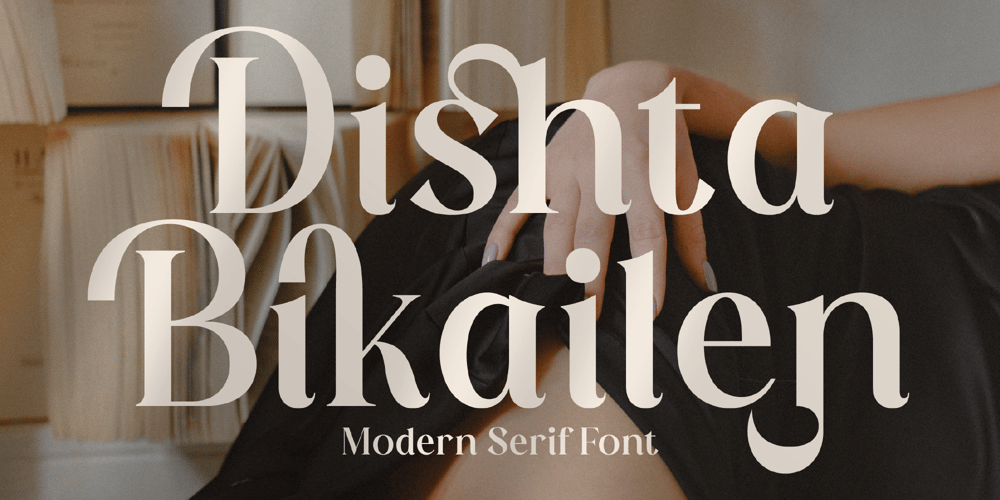
Dishta Bikailen Font Family was designed by Heru Utama Putra and published by Letterena Studios. Dishta Bikailen contains 2 styles and family package options. Dishta Bikailen is a serif modern and classic typeface that has its own unique style & modern look.This typeface is perfect for an elegant & luxury logo, book or movie title design, fashion brand, magazine, clothes, lettering, quotes, and so much more.